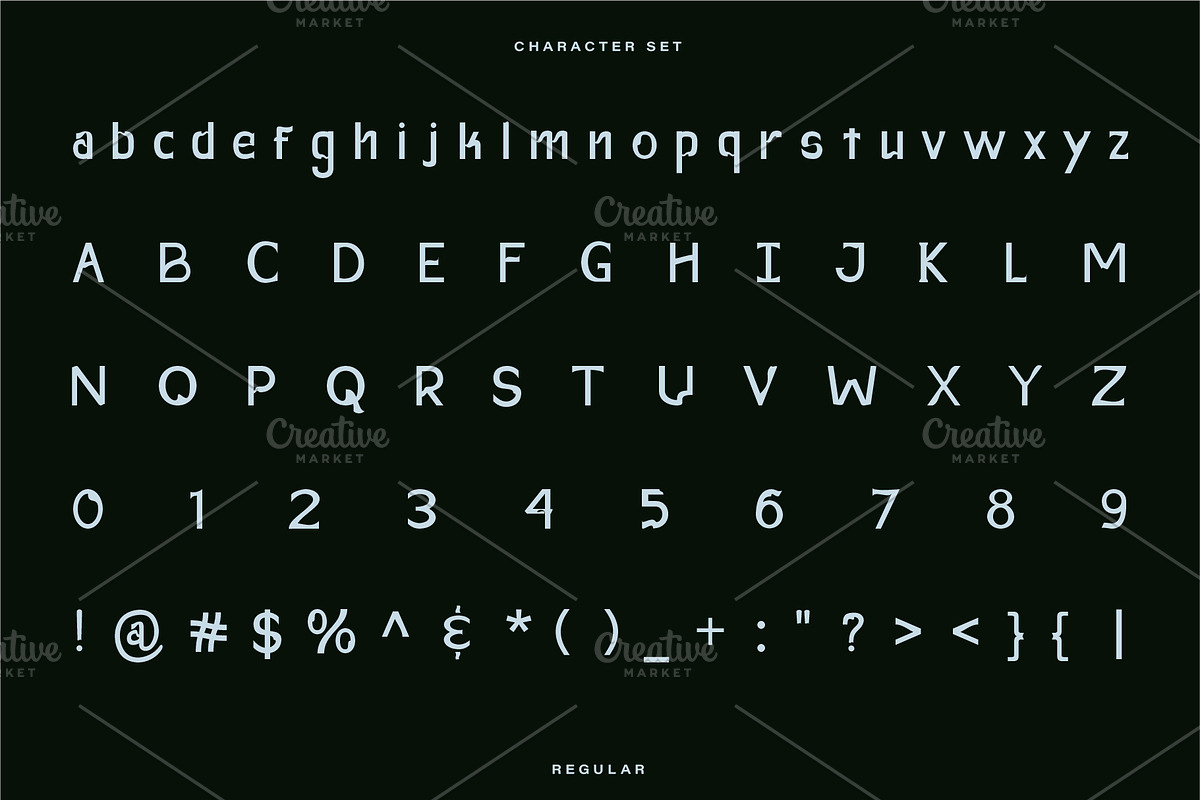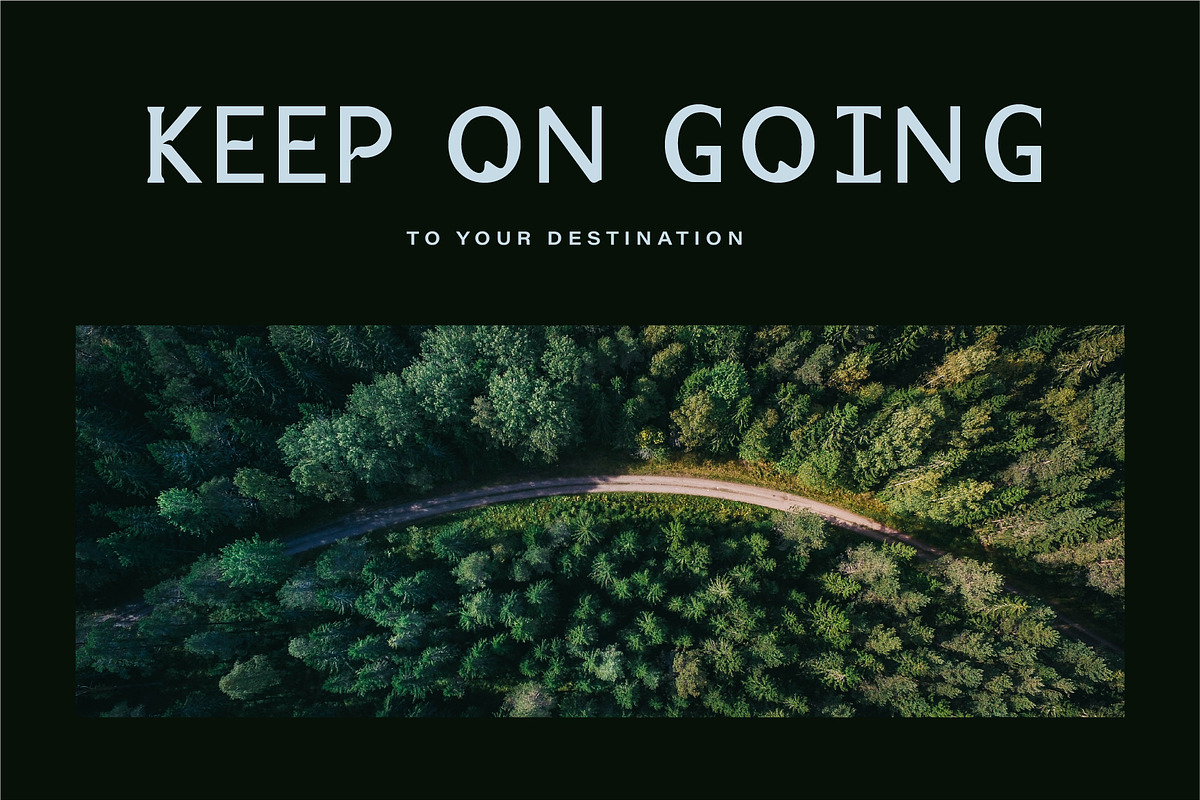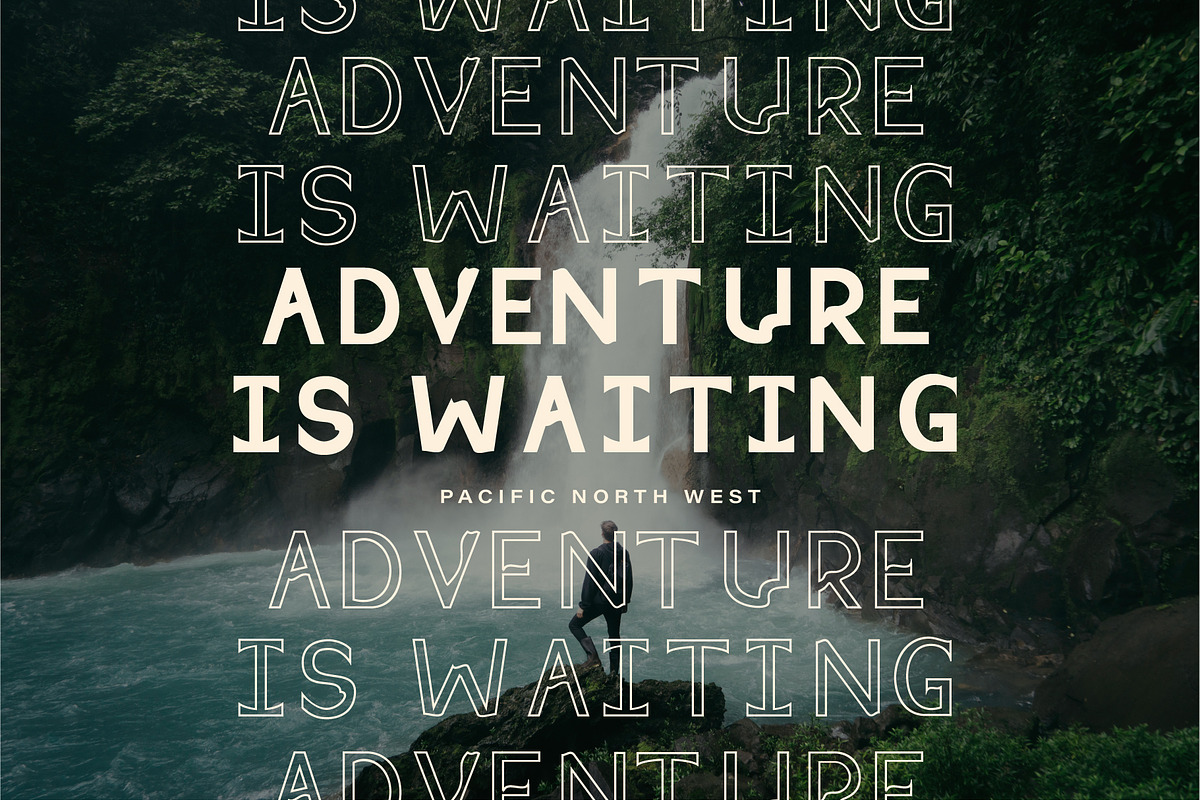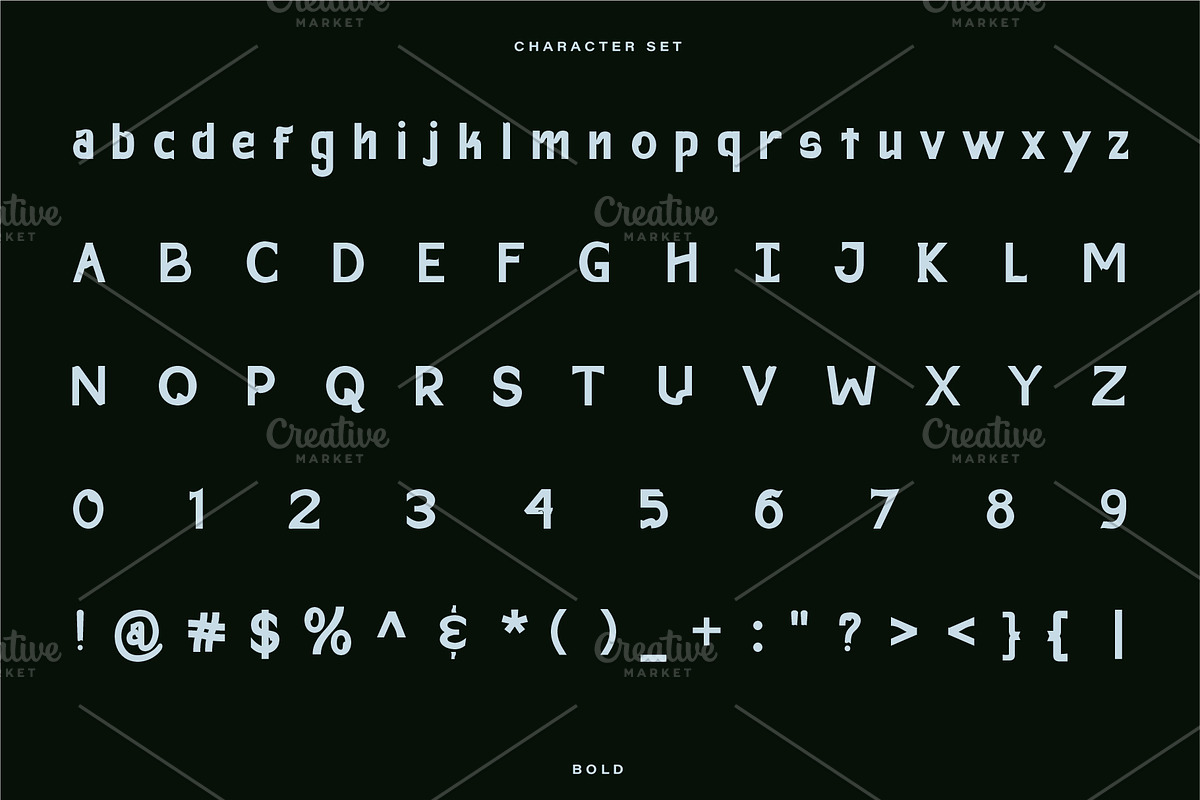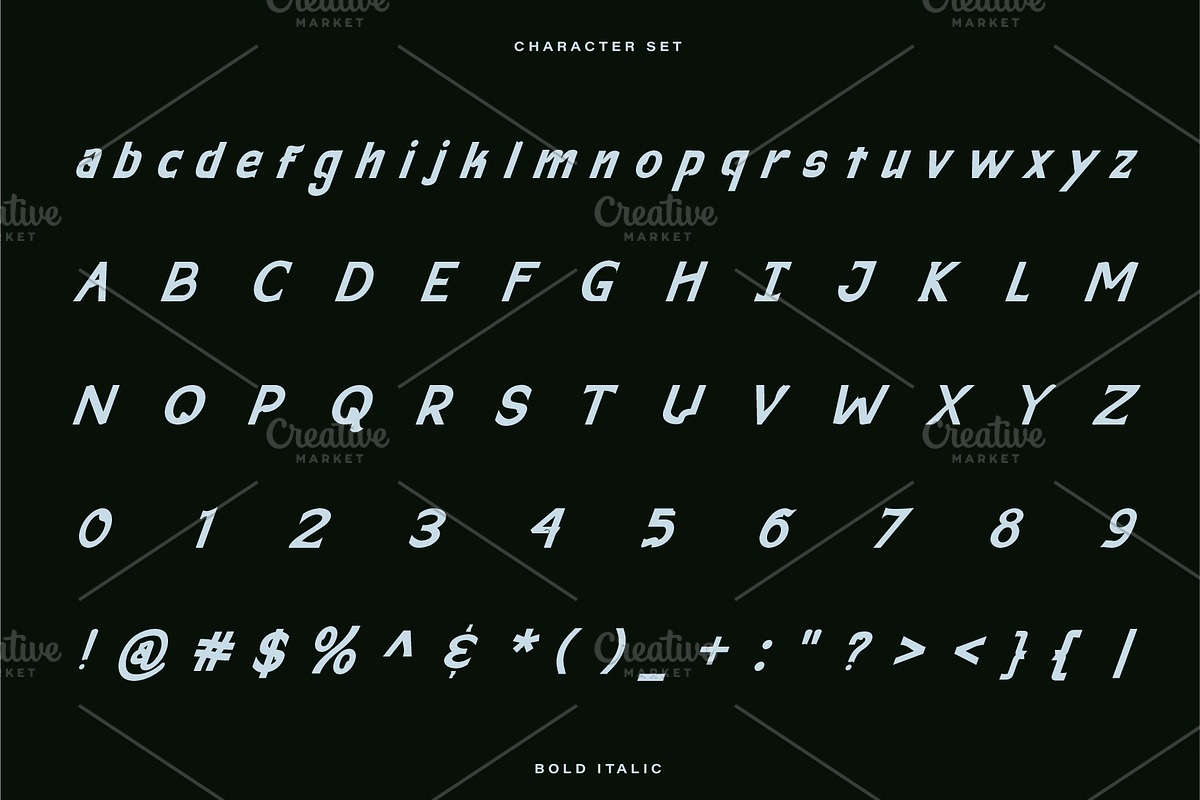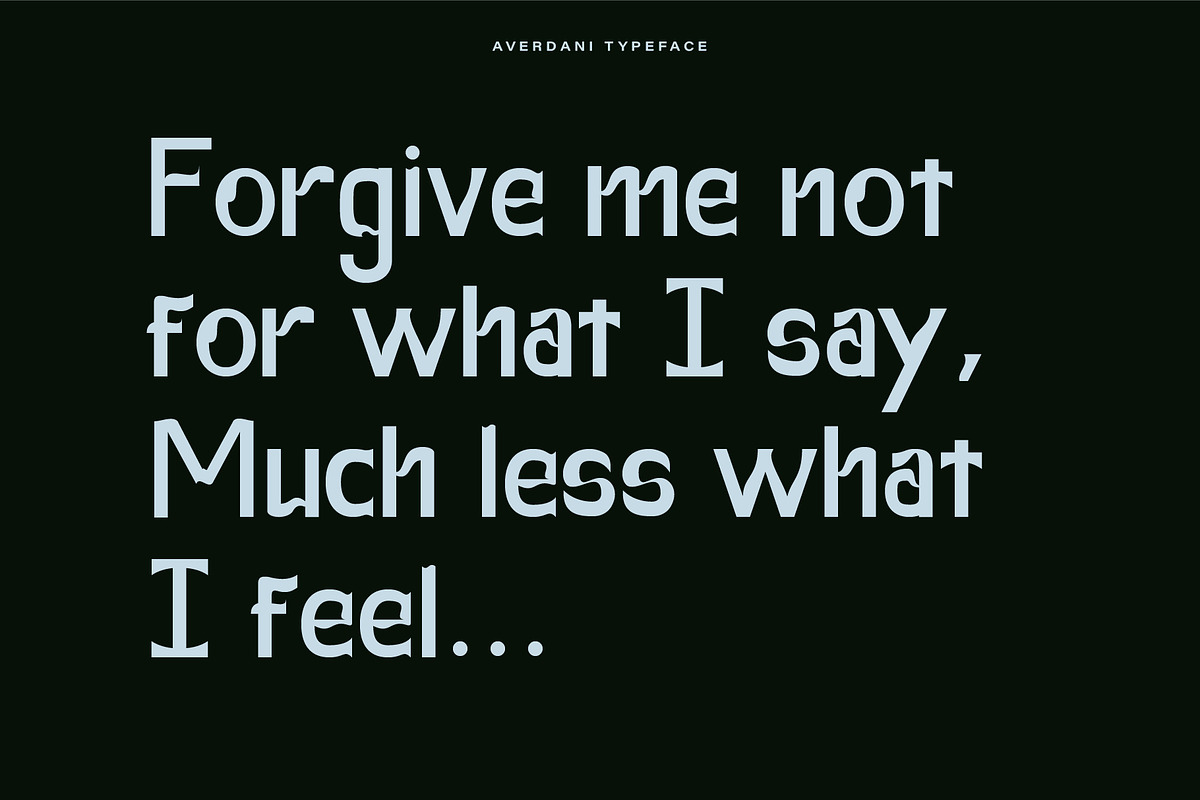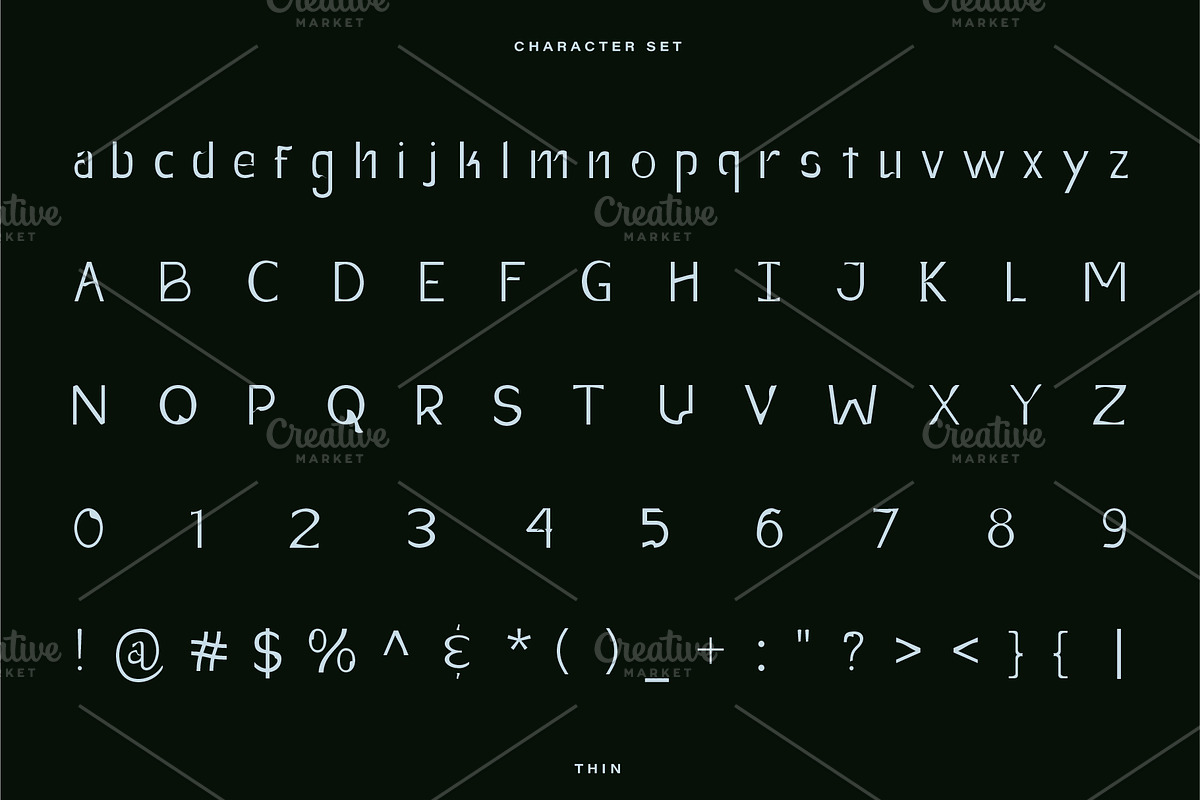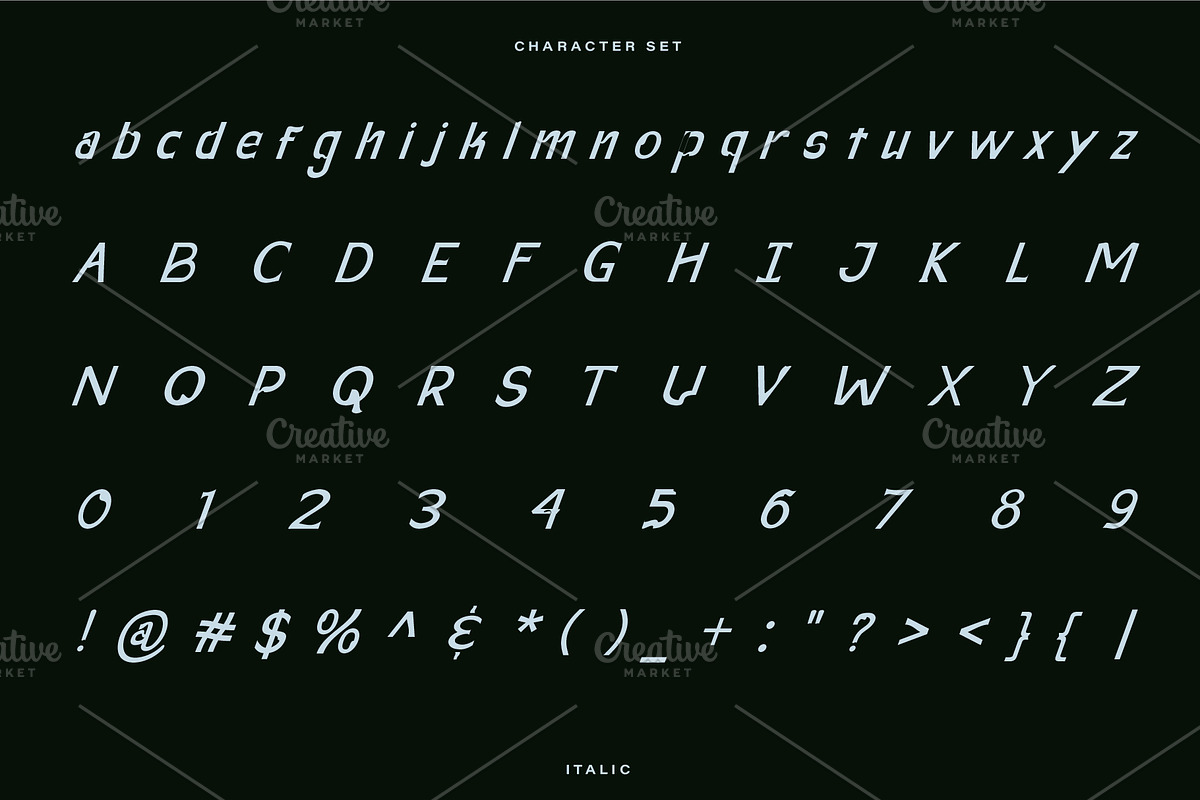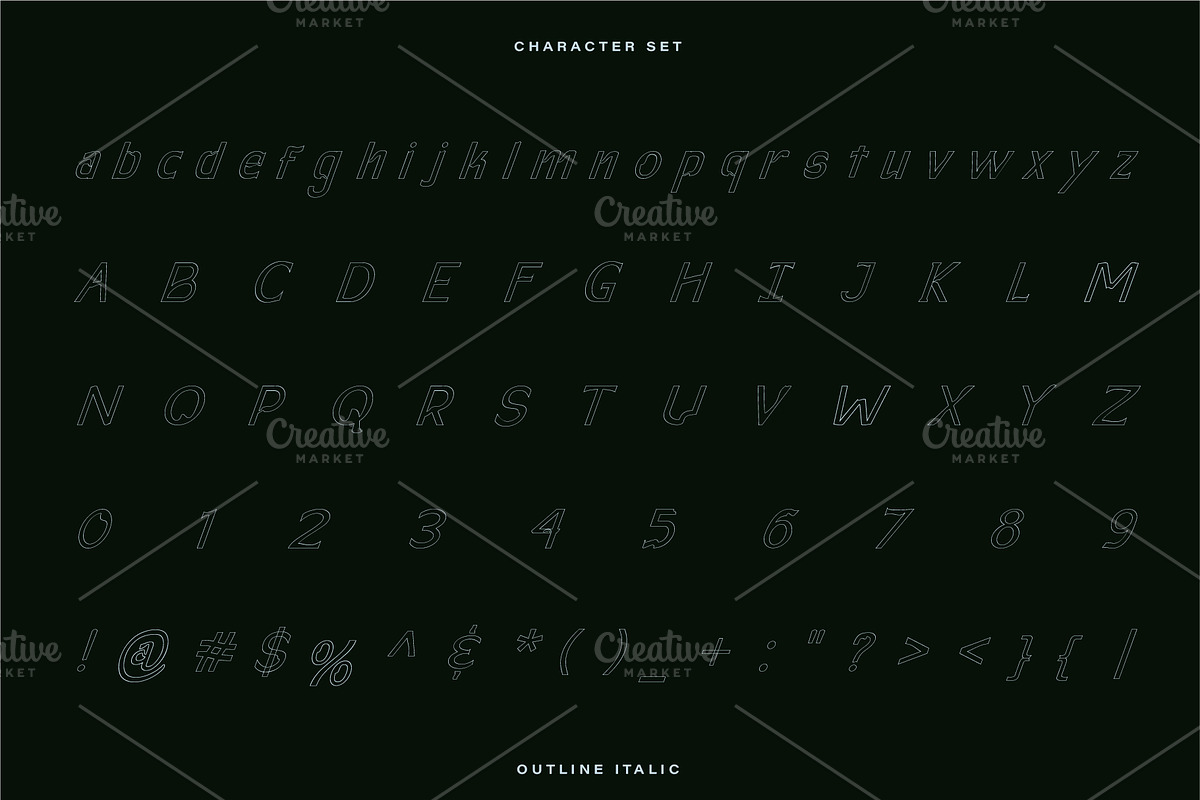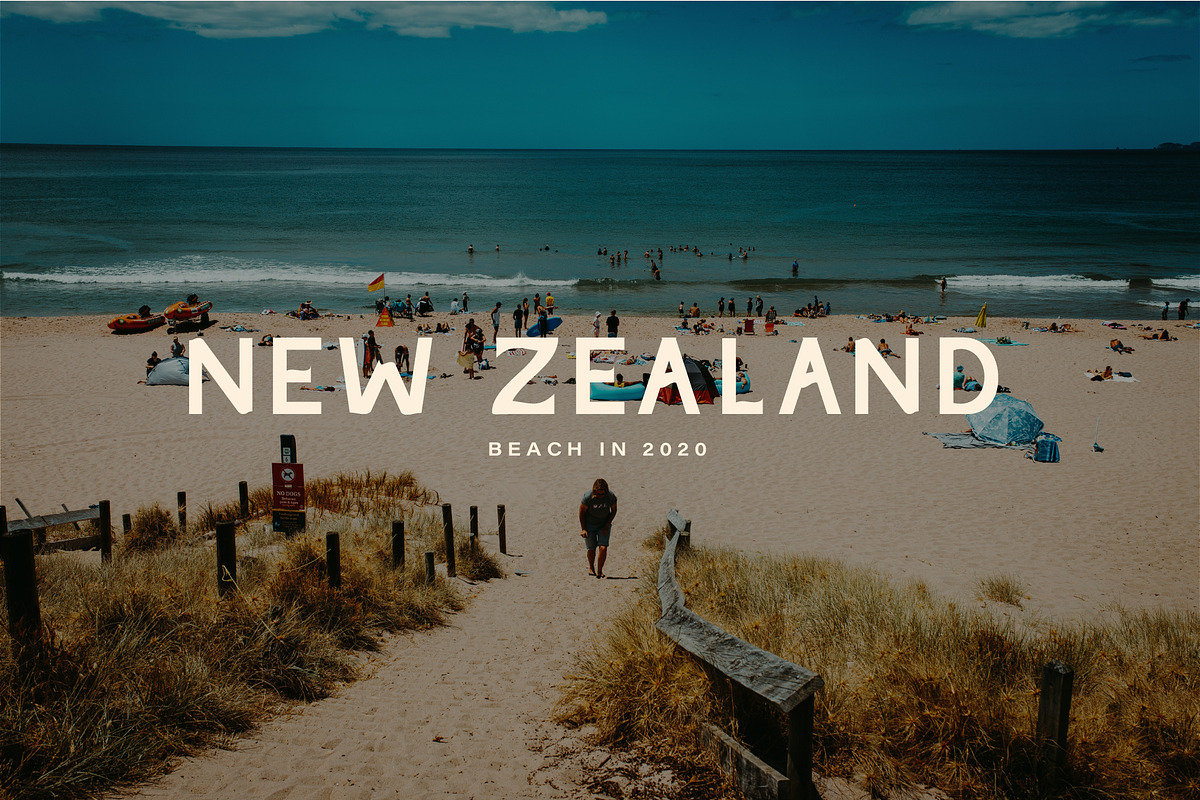
Averdani | A Noble Typeface
Introducing Averdani! A noble font, for noble causes - with 7 verisons! A sans-serif with personilty higher than your standards. This font is great for creating posters, logos and branding, packaging and much more! This font will help your project be unique and stand out.
7 versions of the Averdani font.
- Bold
- Italic
- Bold Italic
- Outline
- Thin
- Outline Italic